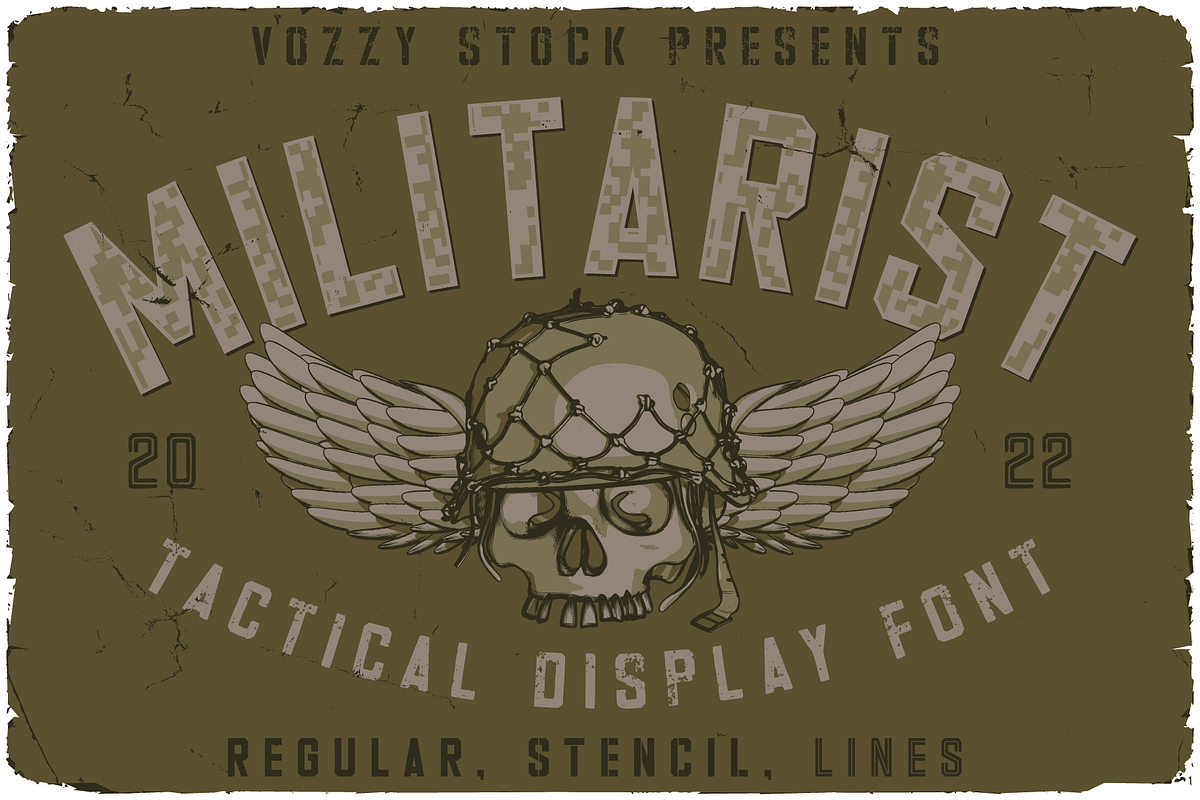
Militarist Font and Graphics is a comprehensive design package created by Oleg Voznyy and published by Vozzy. This collection is tailored for military-themed projects, offering a versatile set of fonts and graphics to enhance your designs.
• Font Styles: The package includes eight distinct font styles: Regular, Stencil, Lines, Texture, Texture FX, Rough, Stencil Rough, and Lines Rough. Each style is designed to cater to different design needs, providing flexibility for various applications.
• Character Support: Militarist supports Cyrillic and multilingual characters, ensuring compatibility with a wide range of languages and enhancing its global usability.
Usage Recommendations:
Militarist is ideal for military or serious-themed designs, such as posters, t-shirts, labels, and logos. Its diverse styles and comprehensive character set make it suitable for various design projects requiring a robust and authoritative aesthetic.